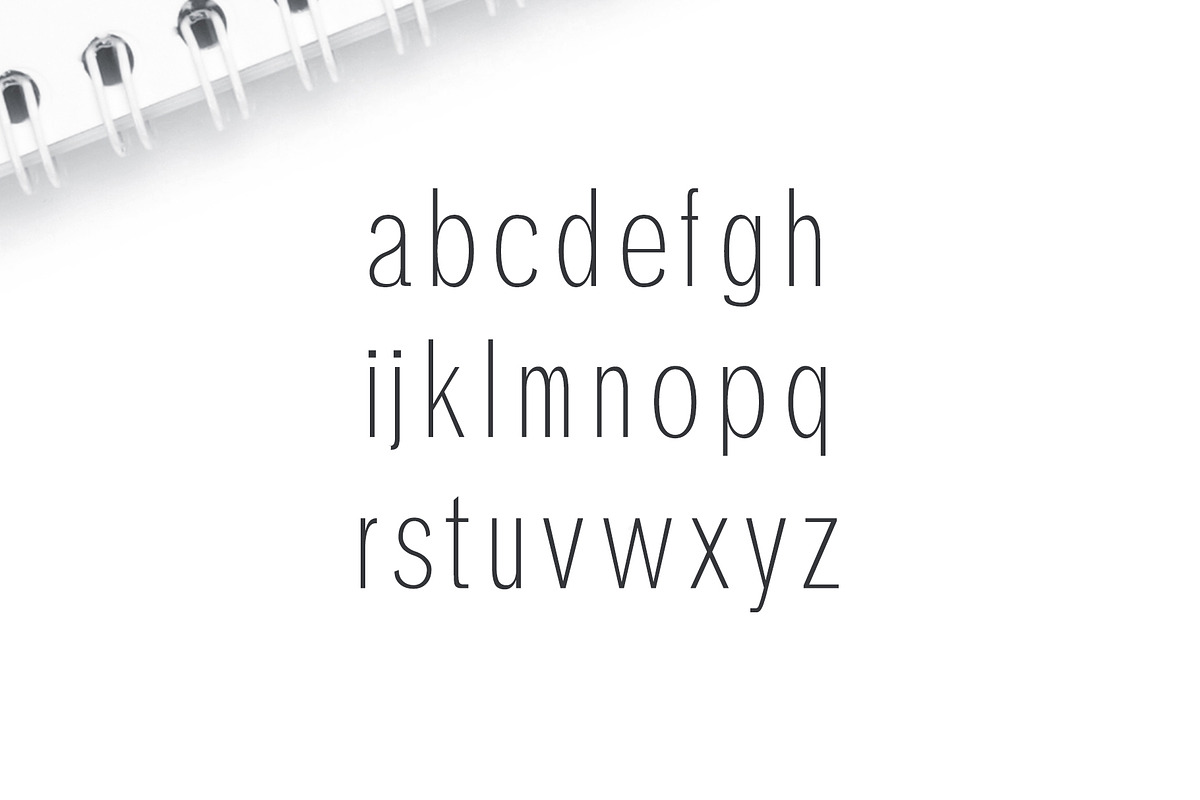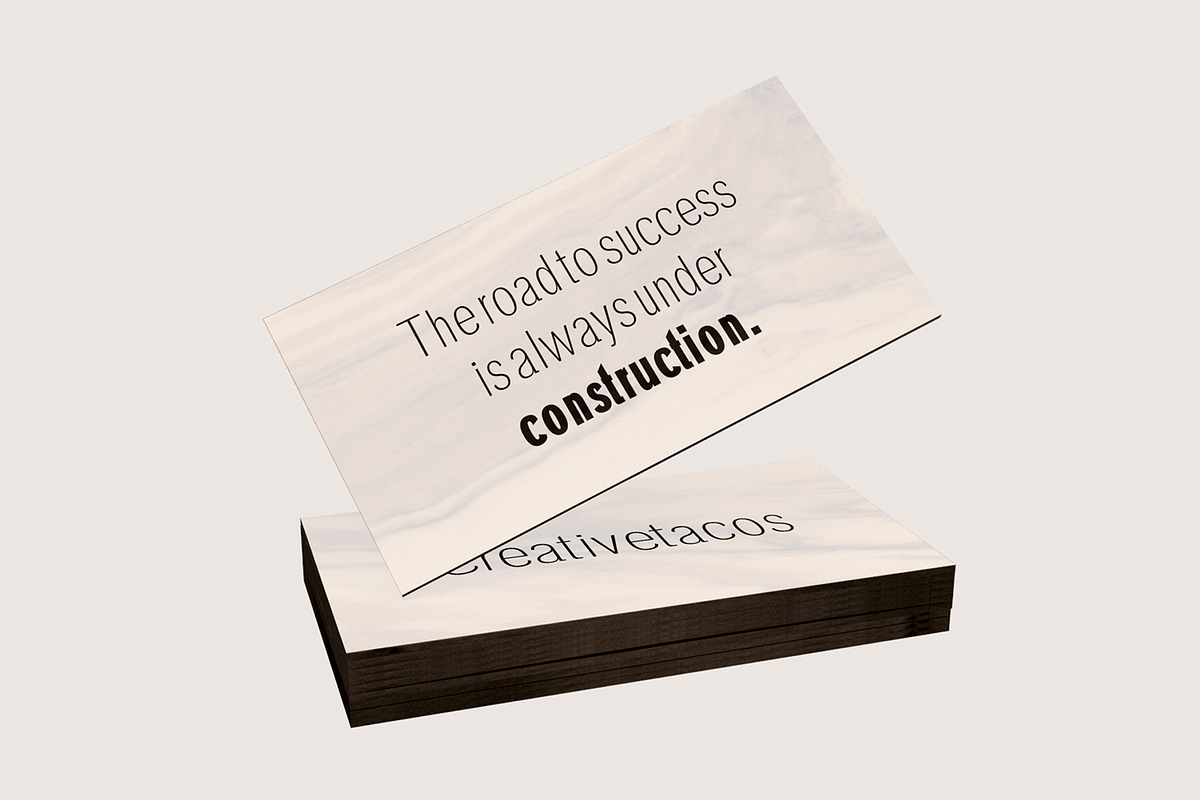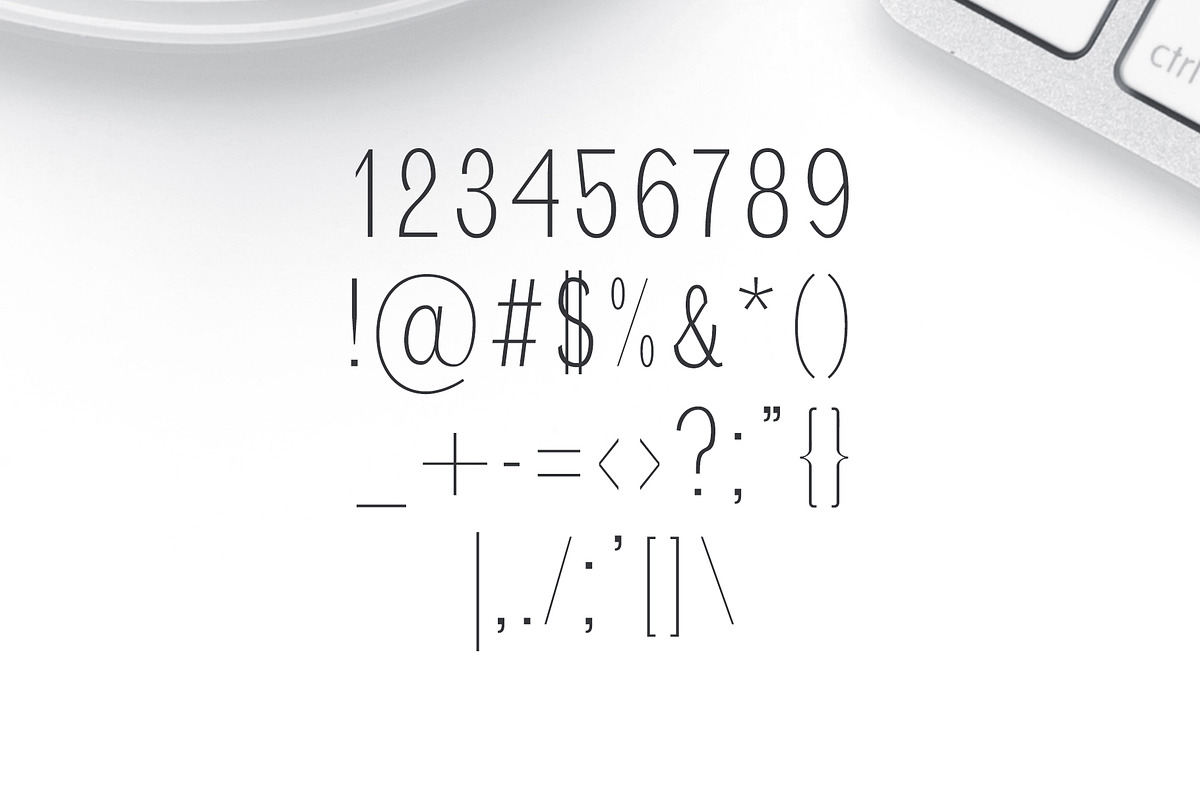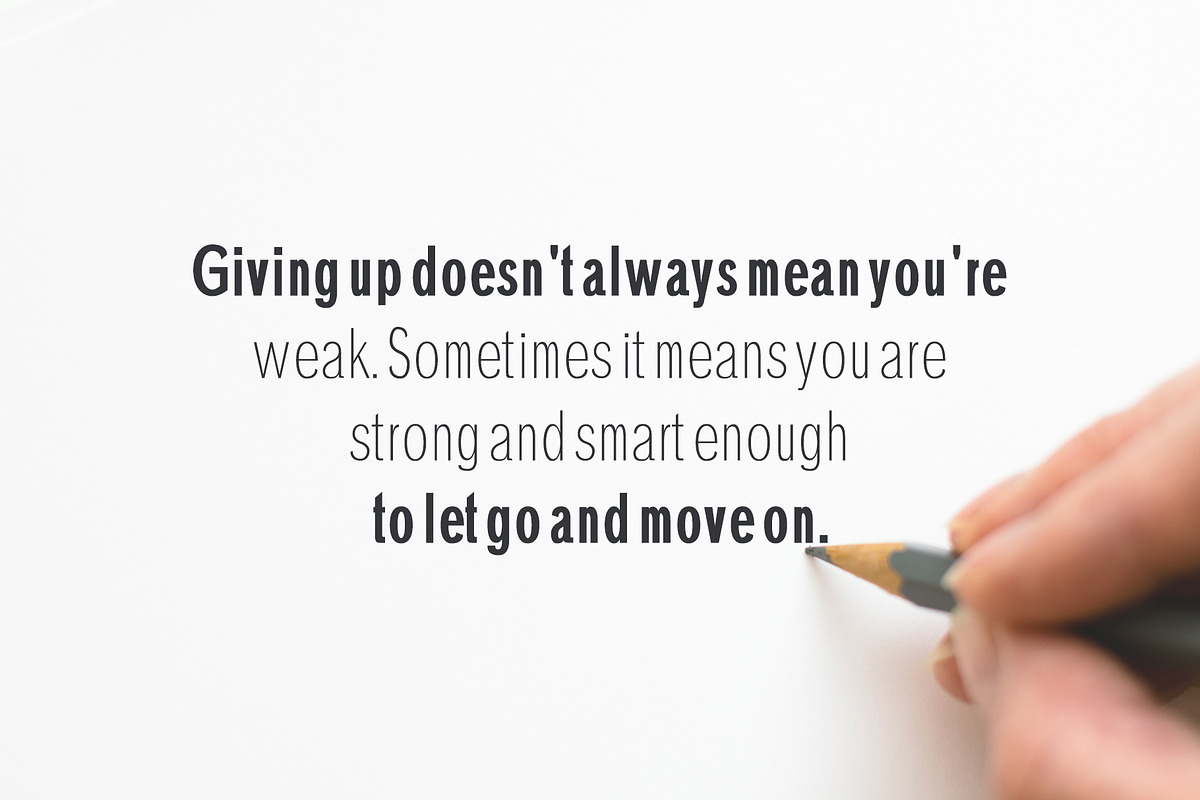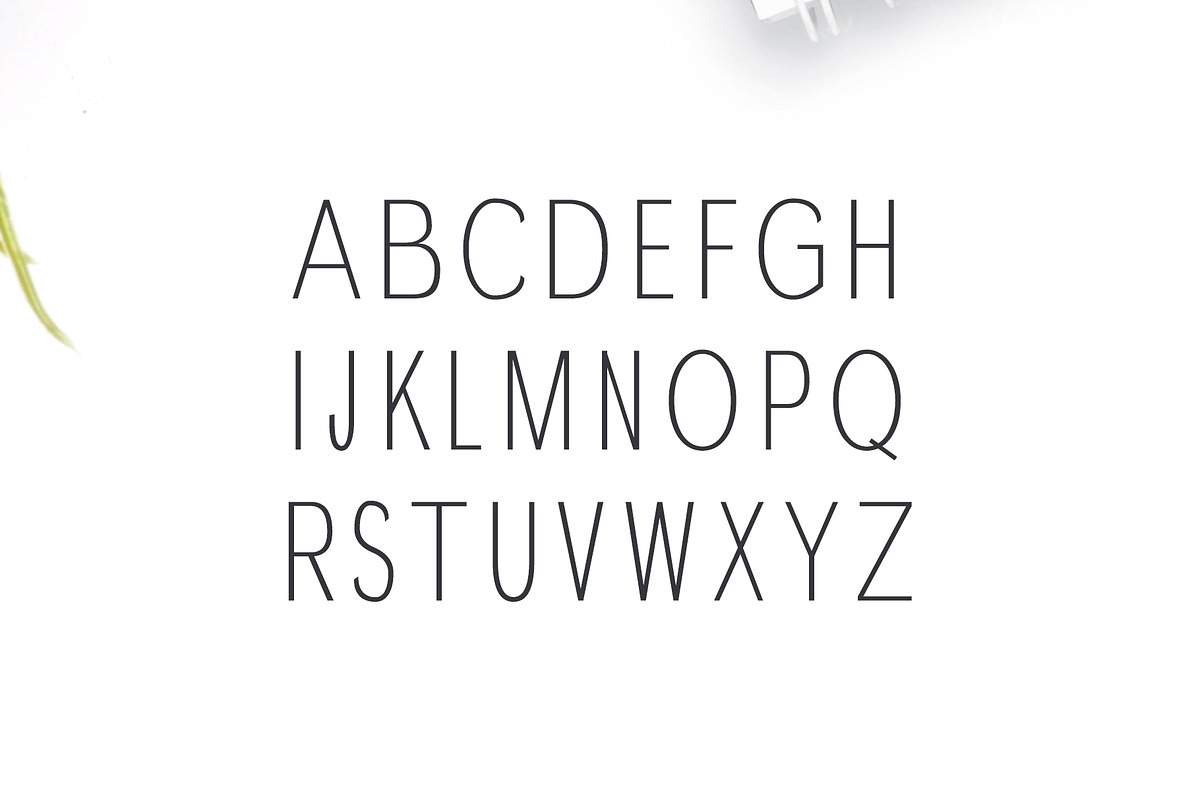
Hurst Sans Serif Font Family Pack
Hurst Sans Serif Font Family Pack by Creativetacos is a font selected for branding, posters, packaging, typography.
- Regular, Bold, Extra Bold and Black Weights
- Hurst Regular
- Hurst Bold
- Hurst ExtraBold
- Hurst Black
Why Hurst Sans Serif Font Family Pack is worth a look
Hurst Sans Serif Font Family Pack by Creativetacos fits naturally into Branding, posters, packaging, typography.